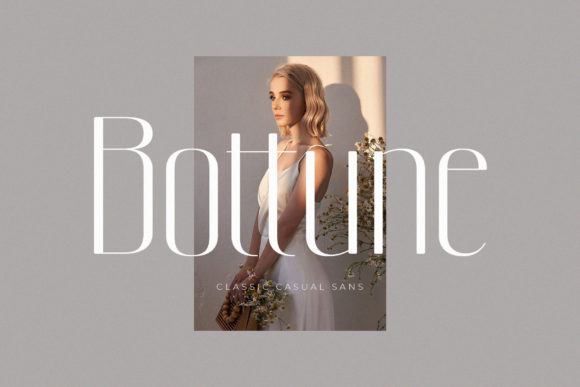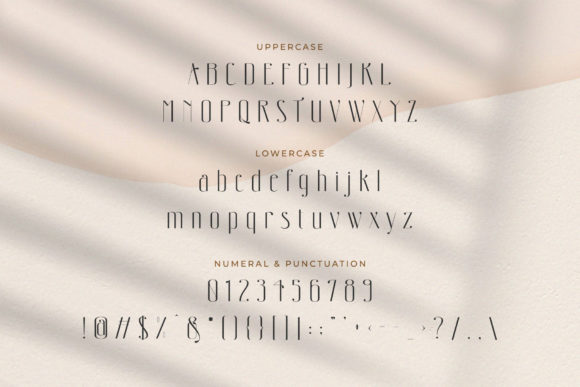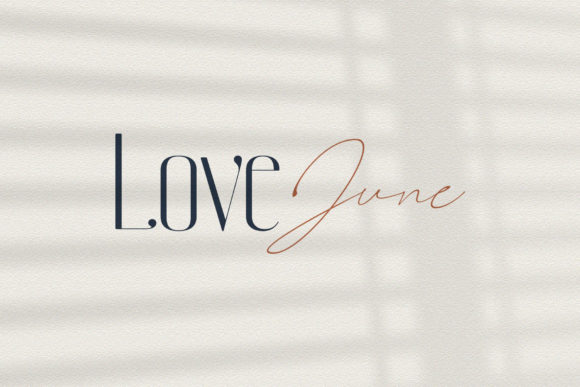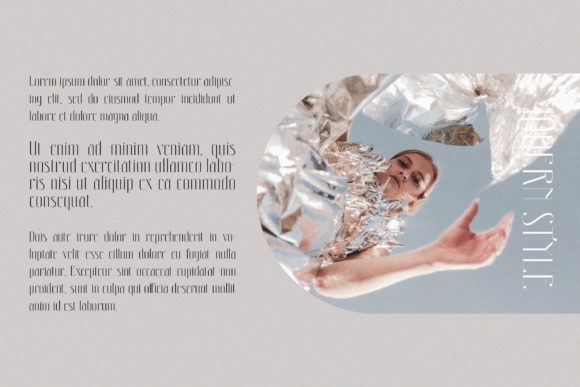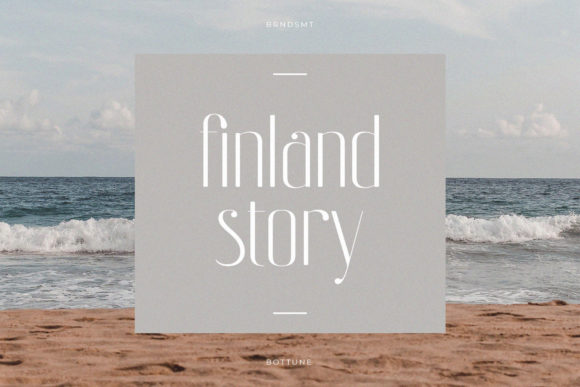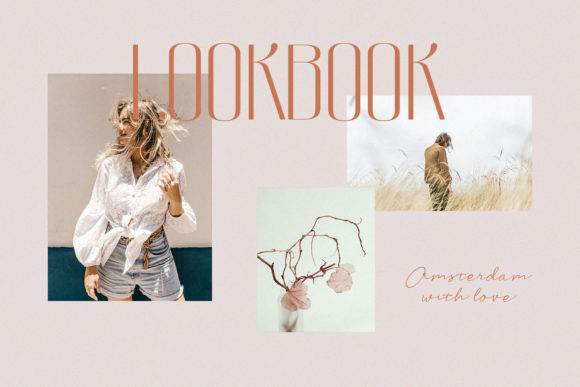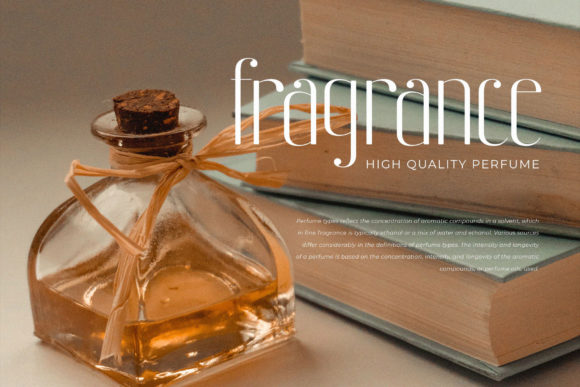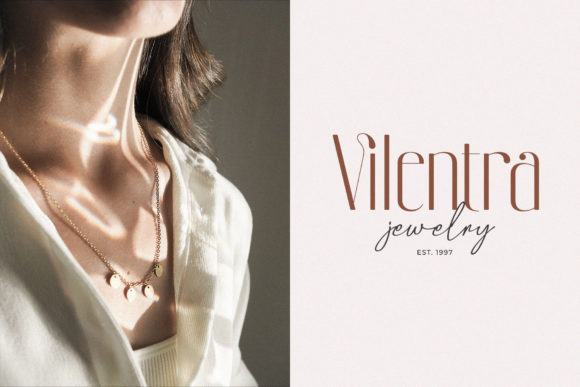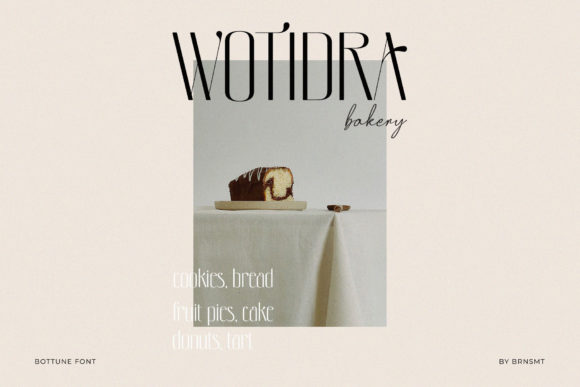
Bottune
Bottune: A Classic and Casual Slab Serif Font
Bottune is a distinctive slab serif font that combines classic style with a casual flair. This versatile typeface is designed to add a touch of class to various design projects, particularly those requiring eye-catching display text.
Key Features of Bottune
• Classic Design: Offers a timeless look rooted in traditional typography.
• Casual Flair: Brings a relaxed and approachable feel to designs.
• Clean Lines: Features crisp, well-defined letterforms for clarity.
• Smooth Curves: Incorporates flowing curves for a softer, more elegant appearance.
• Slab Serif Structure: Includes the characteristic thick, rectangular serifs typical of slab serif fonts.
• Versatile Application: Suitable for a wide range of projects, particularly as display text.
Ideal Uses for Bottune
Bottune’s unique characteristics make it particularly well-suited for:
• Headings and titles
• Logo design
• Branding projects
• Magazine layouts
• Product packaging
• Invitations and stationery
When incorporating Bottune into your designs, consider these tips:
• Use for display text to showcase its classic and casual style
• Experiment with different sizes to highlight the font’s clean lines and smooth curves
• Take advantage of its versatility across various projects that require a touch of class
Bottune is an excellent choice for designers looking to add a classic yet casual slab serif font to their typographic toolkit. Its ability to enhance various design projects with a touch of class makes it stand out in the world of typography. Whether you’re working on logo designs for sophisticated brands, creating layouts for magazines, or developing invitations that require a blend of elegance and approachability, Bottune offers the perfect mix of classic style and casual charm.
Furthermore, Bottune’s versatility allows it to shine in various contexts. From vintage-inspired designs with a modern twist to more playful layouts that need a touch of sophistication, this font can elevate your projects. Its clean lines and smooth curves work particularly well in designs that require a thoughtful and refined mood.
In conclusion, Bottune is a font that bridges the gap between classic elegance and casual approachability. Its ability to work well in both traditional, elegant projects and more contemporary layouts showcases its flexibility. For those looking to add a touch of timeless style with a casual feel to their work, Bottune can even enhance themed creations with its unique blend of classic design and smooth curves.